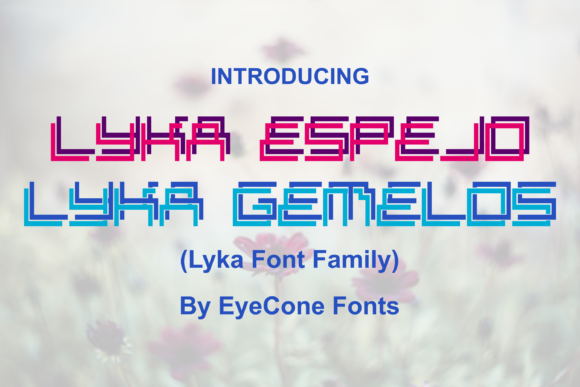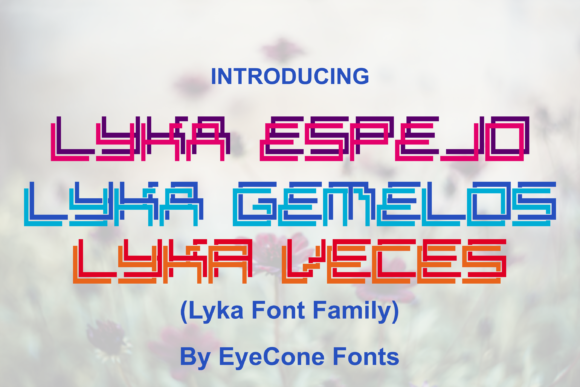
Introduction to Lyka Family Font Font
Fonts play a crucial role in design, and the Lyka Family Font font is a typeface that brings both character and versatility to any project. Whether you’re working on a branding project, a website, or a print design, the Lyka Family Font font offers a unique style that can elevate your work.
The Lyka is an unique display family which comes in three styles.
Each letter has double lines to make your text stand out .
Key Features of Lyka Family Font Font
Why Choose Lyka Family Font Font?
The Lyka Family Font font is more than just a typeface – it’s a design tool that helps you communicate your message with style and clarity. Its unique character set and versatile design make it suitable for a wide range of applications, from elegant invitations to bold headlines.
With its carefully crafted letterforms and balanced proportions, the Lyka Family Font font ensures readability and visual appeal across all mediums.
What makes Lyka Family Font font special?
The Lyka Family Font font stands out with its unique design, exceptional readability, and versatility across various design applications.